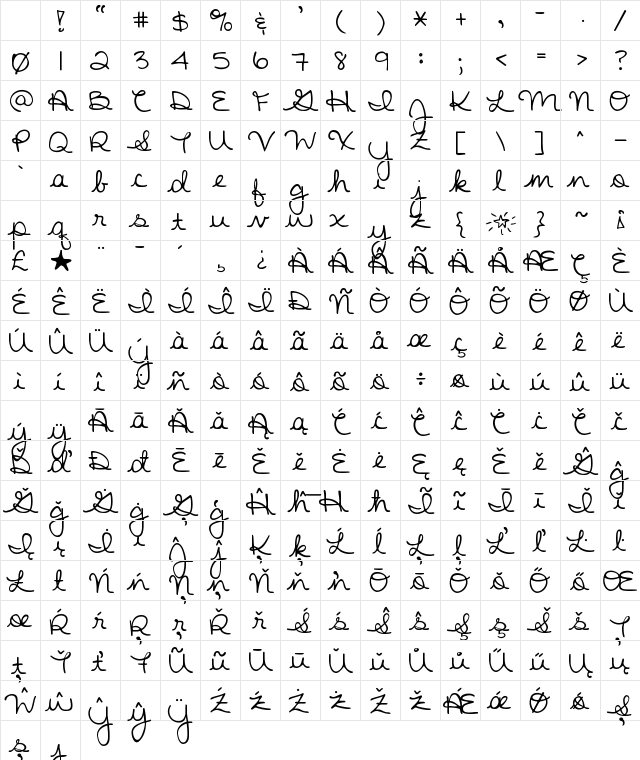
Complete KG Stars From Our Eyes Regular glyph index. Displaying only characters natively supported by KG Stars From Our Eyes Regular font.
KG Stars From Our Eyes is a composed and adaptable typeface that performs quietly and consistently across a wide range of design contexts.